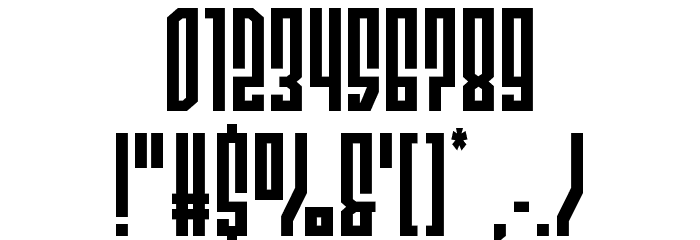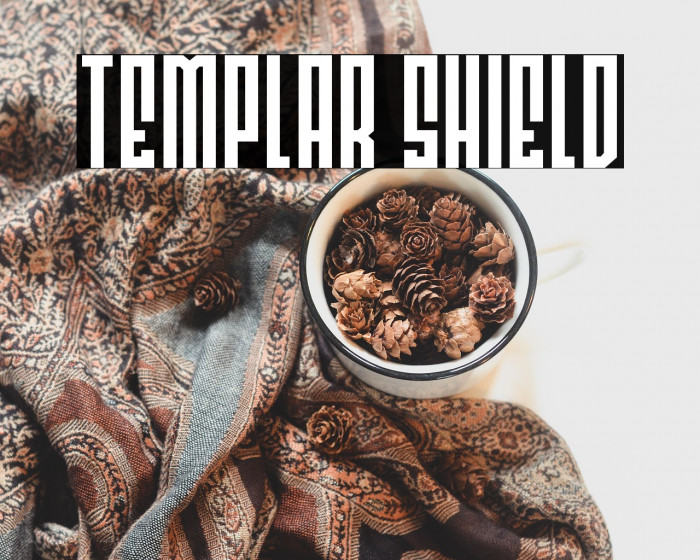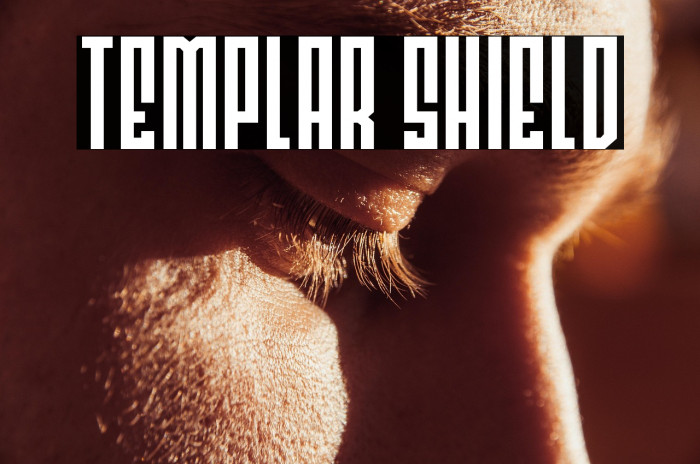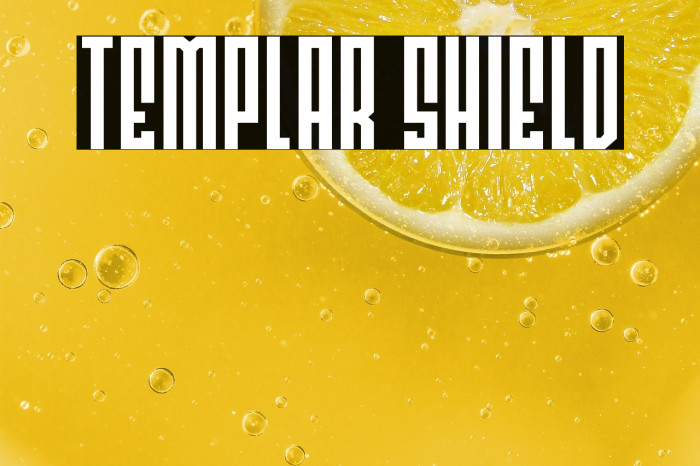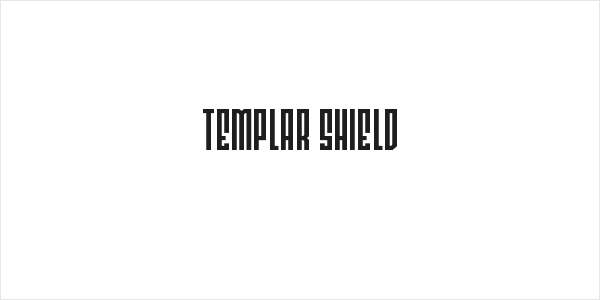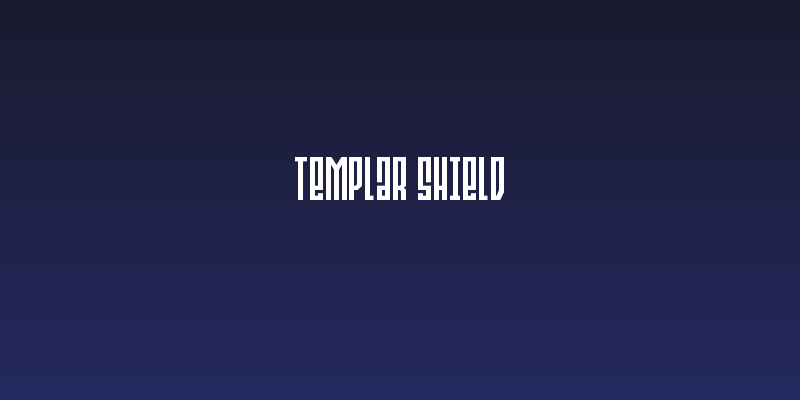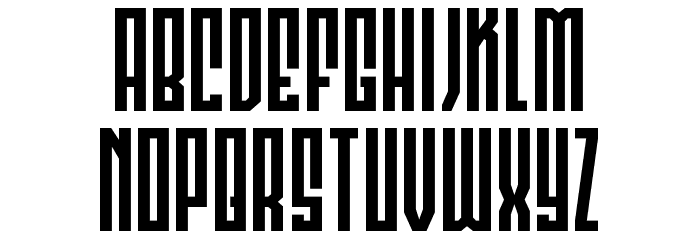
Templar Shield Font
Templar Shield Description
This font features a bold and striking design with a strong geometric structure. The characters are tall and narrow, giving it a condensed appearance. The sharp angles and straight lines create a sense of strength and authority, reminiscent of medieval or gothic styles. The uppercase letters are particularly dominant, with a uniform height that enhances the font's imposing presence. The numerals and special characters maintain the same boldness and angularity, ensuring consistency across all glyphs. This font is ideal for projects that require a dramatic and impactful visual statement.
| Overall Style | Gothic, Medieval |
| Proposed Projects | Ideal for branding, posters, video game titles, and any design requiring a medieval or gothic aesthetic. |